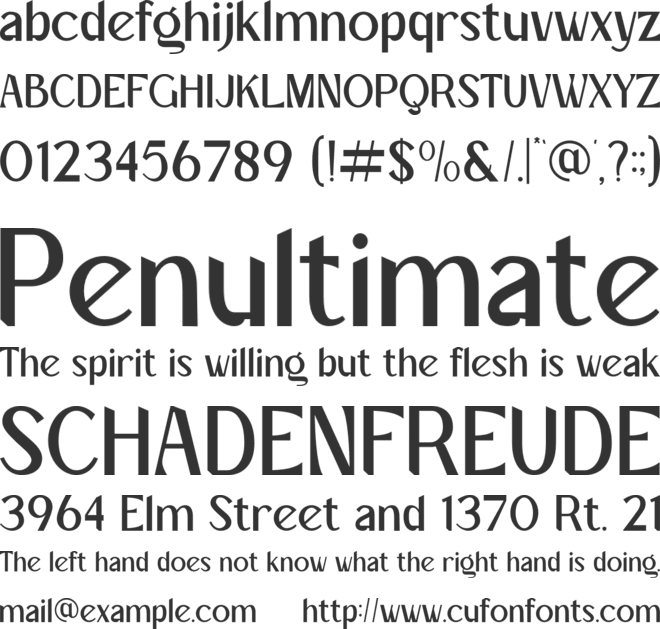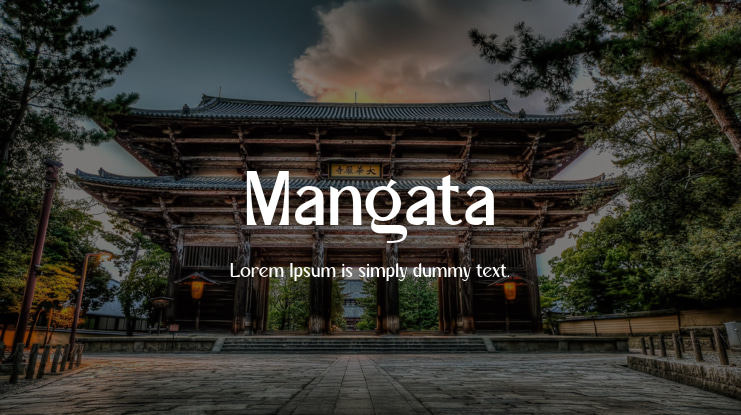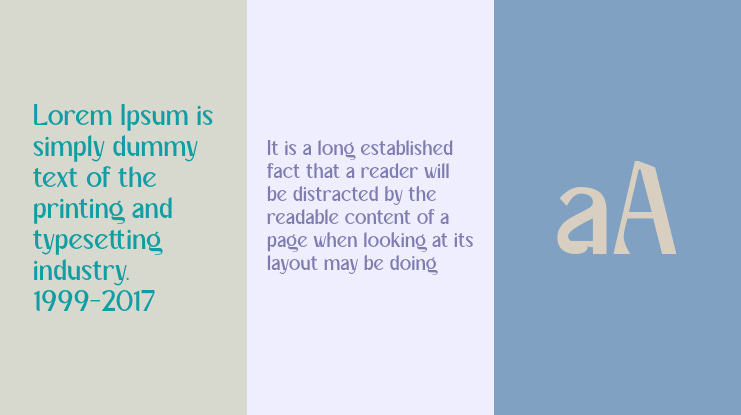
Mangata Font Family
Mangata Typeface
Mangata is a beautiful and elegant sans serif font. Inspired by a figure whose beauty matches the reflection of the moon on the water. This font I created is meaningful & very versatile, it goes well with various designs, elevating them to the highest level. Add this font to your favorite creative ideas and see how it turns out!
features: uppercase, lowercase, alternate, ligature & multilingual